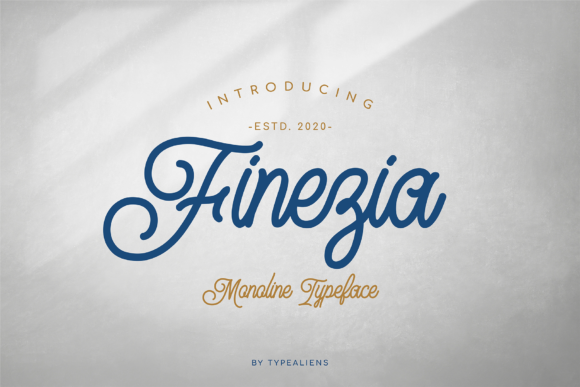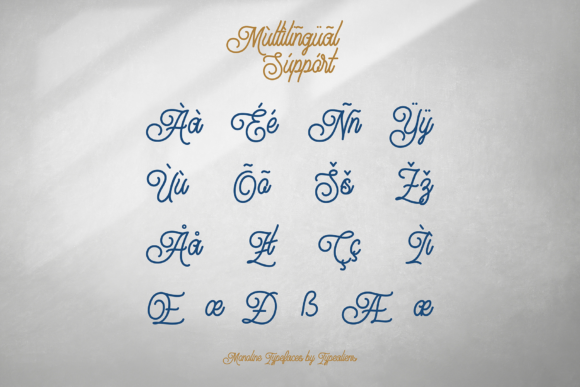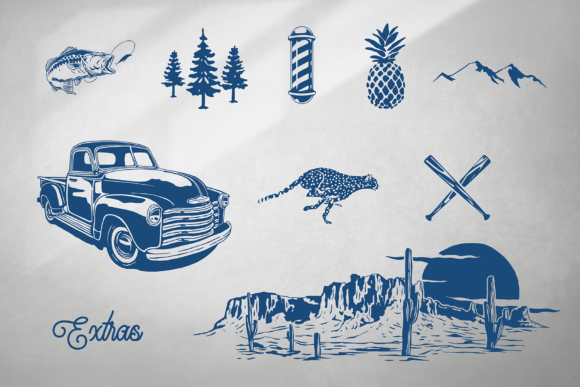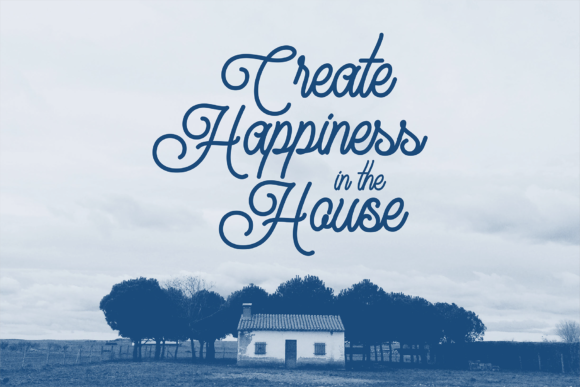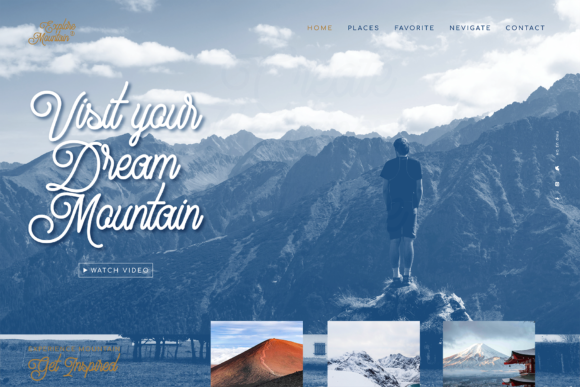
Finezia Font
About Finezia Font
Finezia is script-monoline typeface. Its casual charm makes it appear wonderfully down-to-earth, readable and, ultimately, incredibly versatile. Finezia will look outstanding in any context, whether it’s being used on busy backgrounds or as a standalone headline!